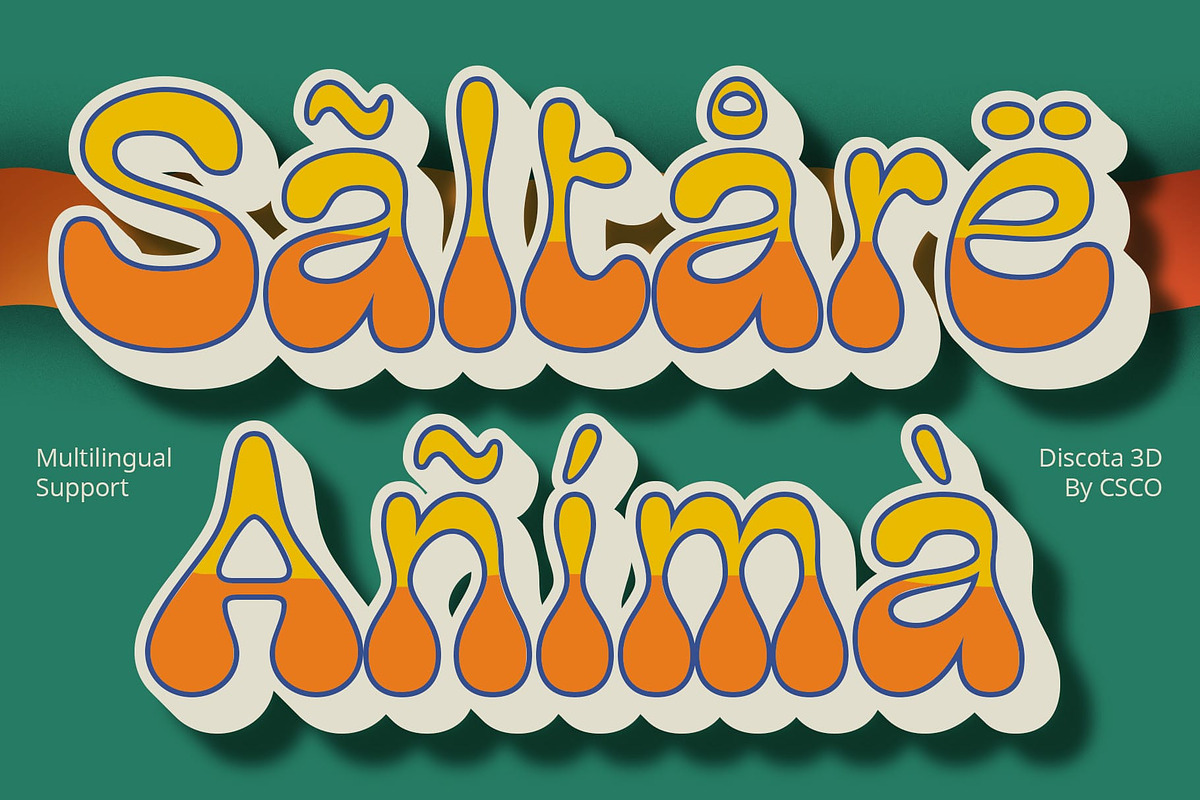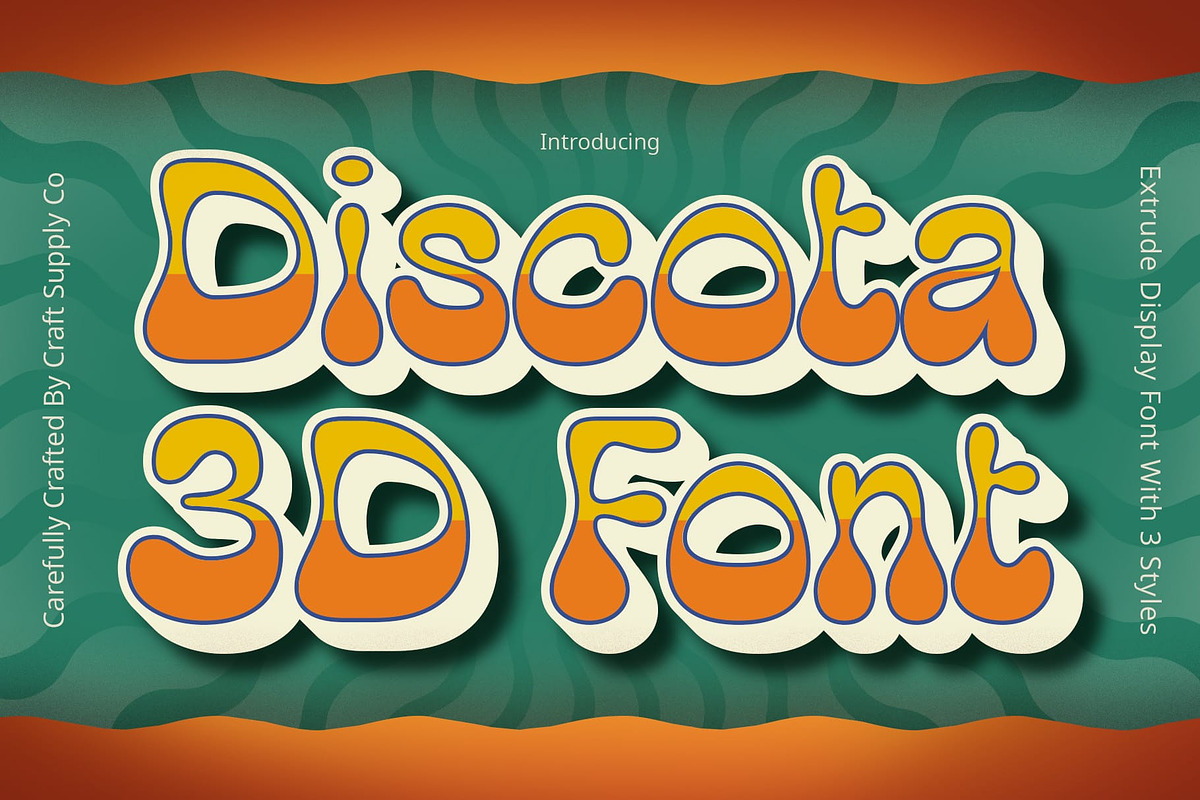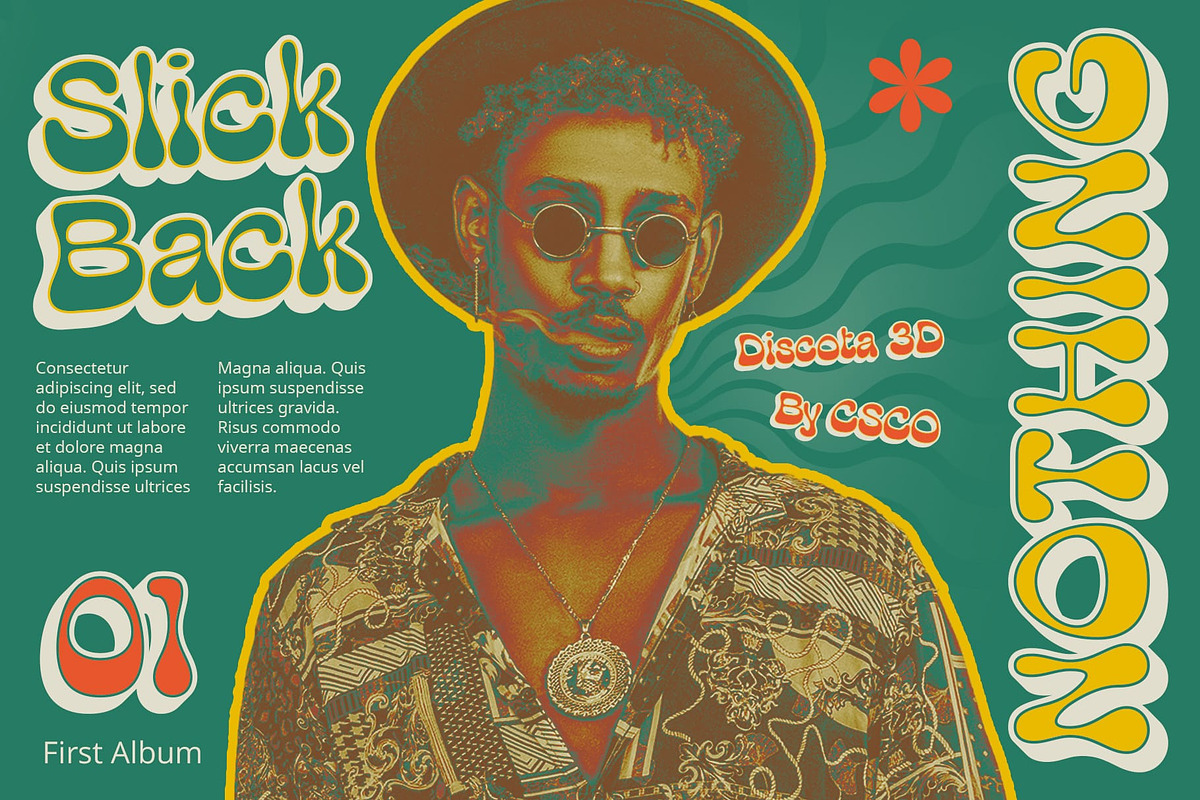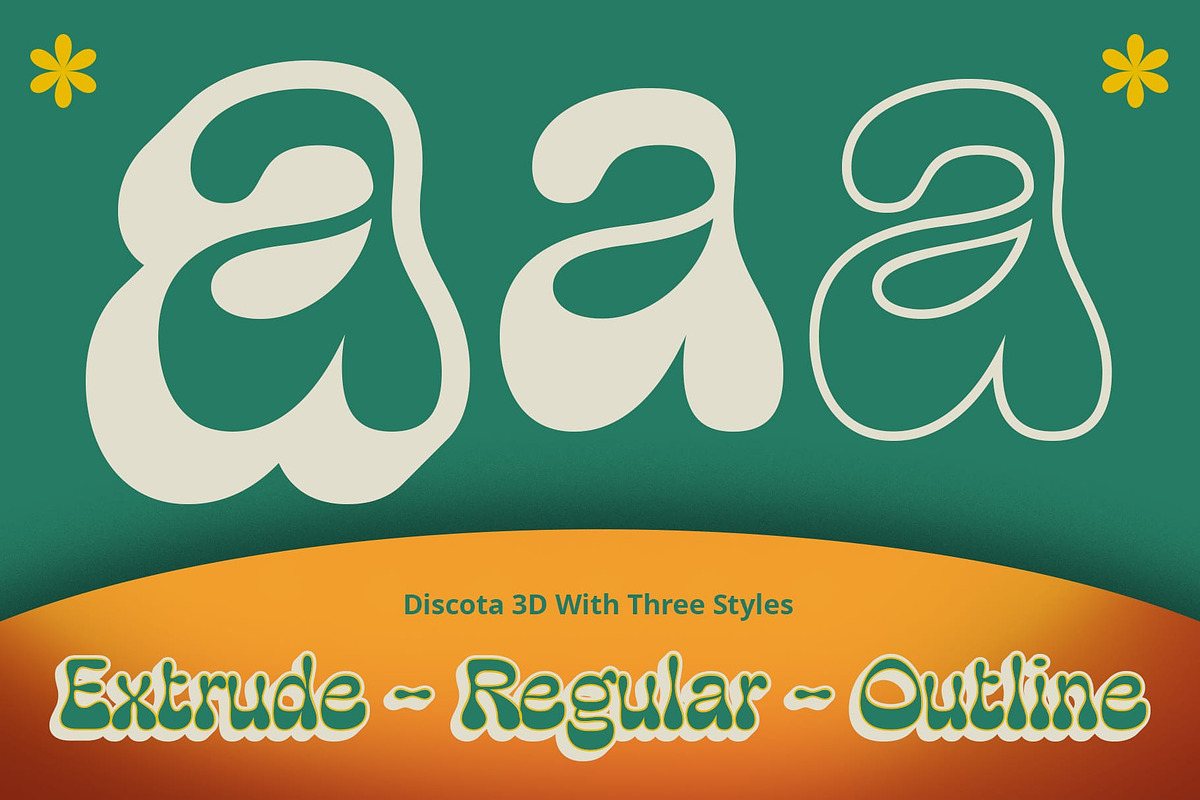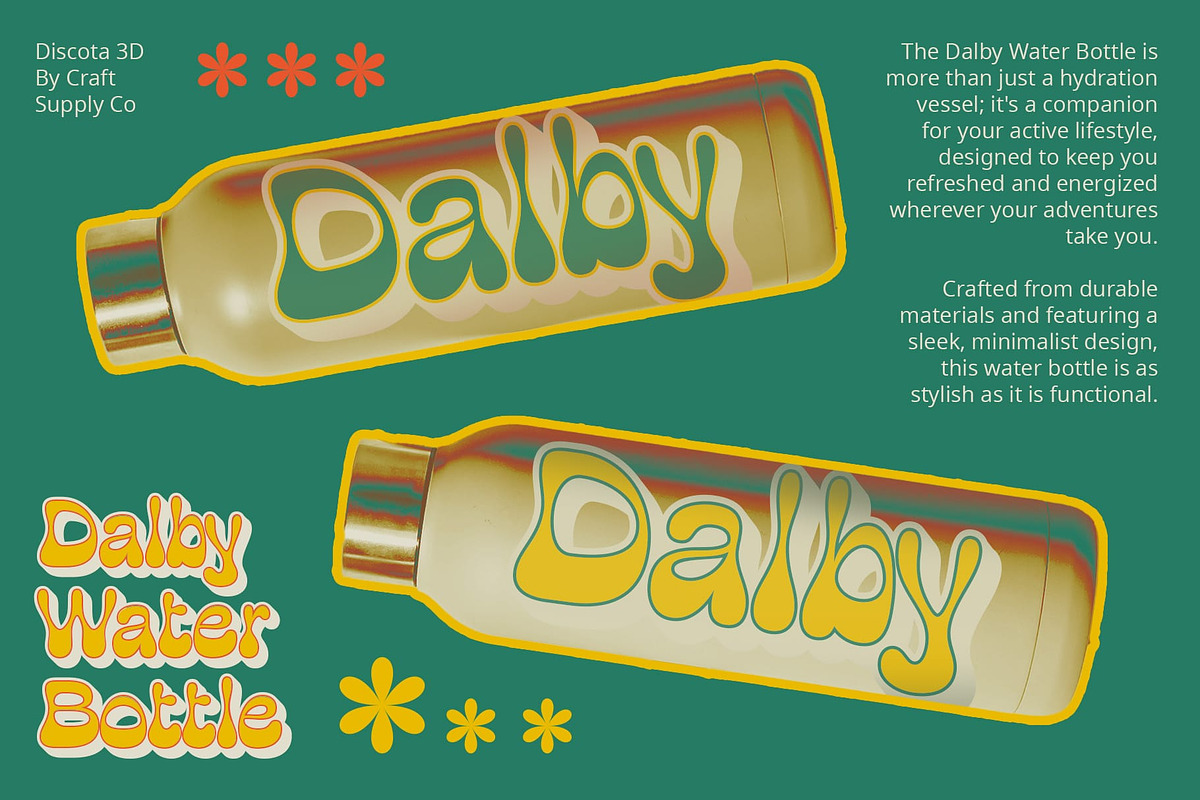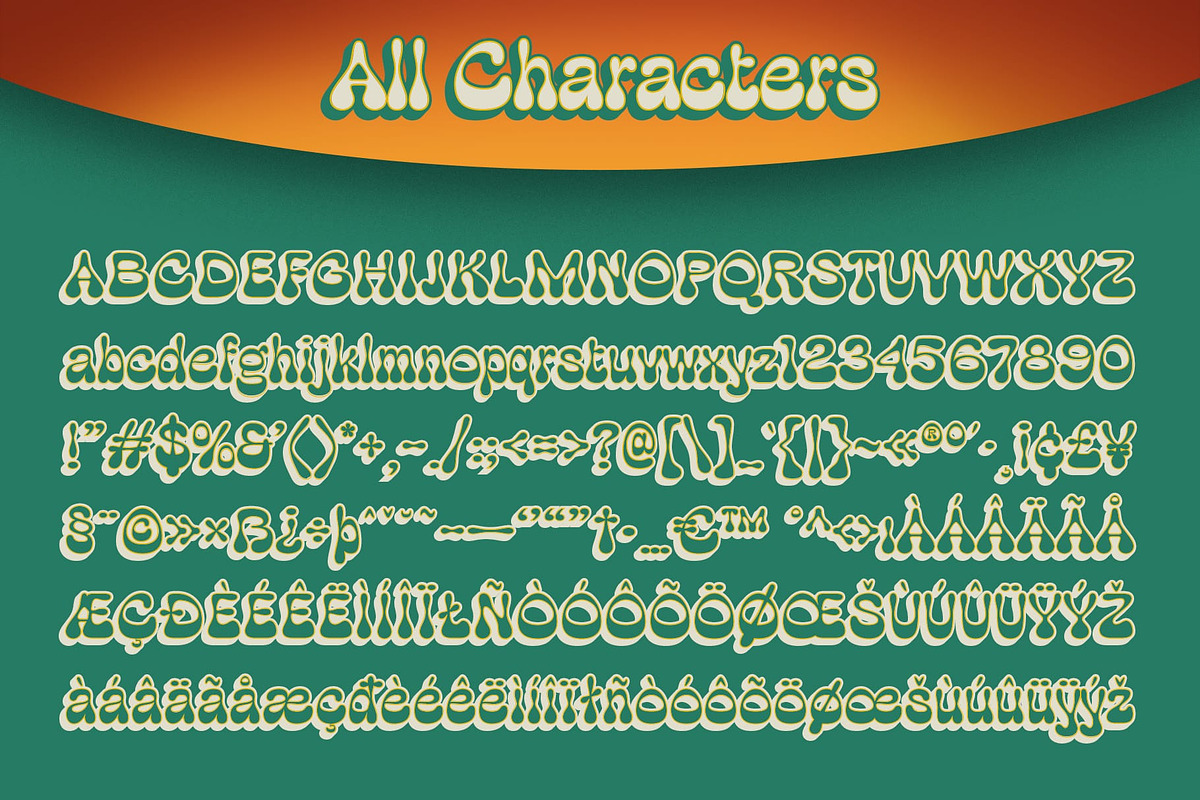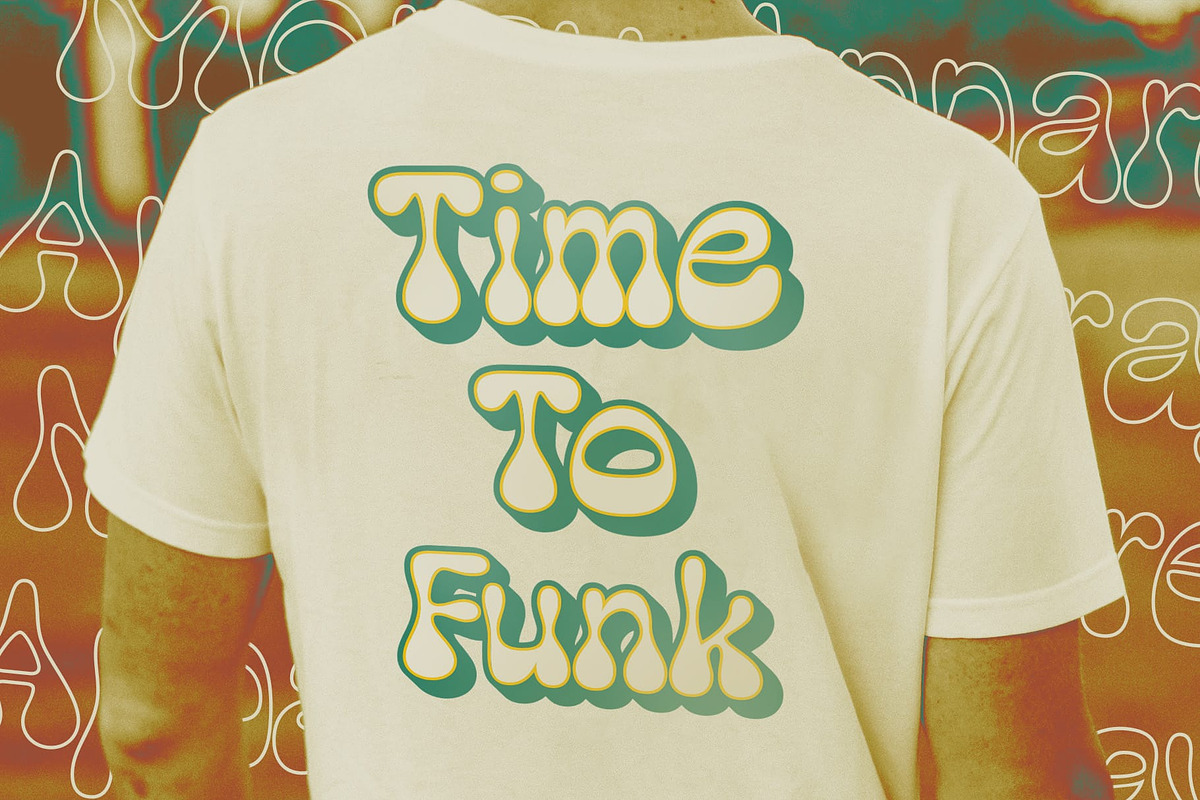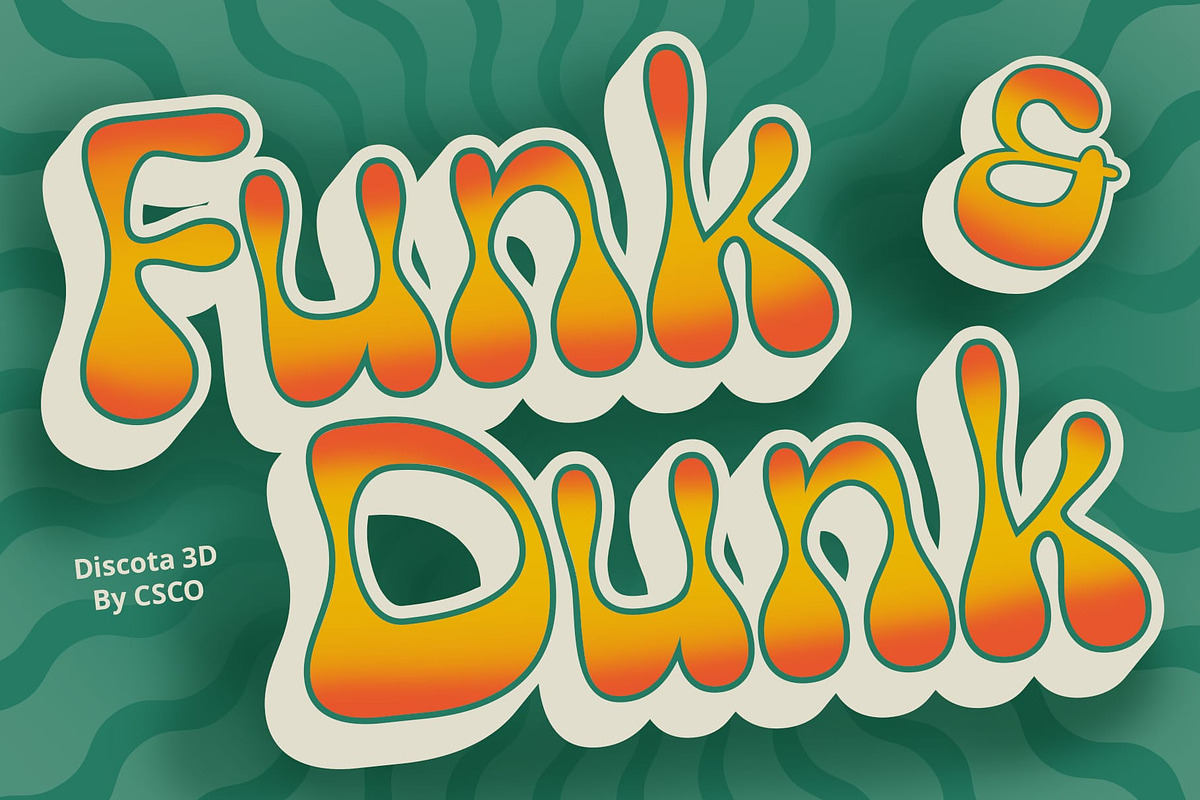
Discota 3D
Discota 3D: Retro Bubble Display Font
Inspired by Balloons Discota 3D draws inspiration from balloons, infusing a retro vibe into its bubbly design. Its playful display appearance evokes nostalgia and charm, reminiscent of carefree days.
Quirky and Fun With its whimsical bubble shape and retro undertones, This font exudes a quirky and fun personality. Each character radiates a cheerful aura, making it perfect for lighthearted display projects.
Dynamic 3D Effects Enhanced with dynamic 3D effects, This font comes to life with depth and dimension. The added dimensionality elevates its visual appeal, ensuring that it captivates attention and stands out effortlessly.
Eye-catching Display Solution Tailored for eye-catching displays, This font is an ideal choice for projects that demand immediate attention. Whether used in posters, advertisements, or digital graphics, its vibrant and lively presence guarantees to leave a lasting impression.
Retro Charm in Every Bubble This font brings retro charm to the forefront with its bubbly design and playful demeanor. Enhanced with dynamic 3D effects, it offers a delightful visual experience that is sure to capture hearts and attention alike. Let This font infuse your designs with whimsy and nostalgia, creating memorable displays that leave a lasting impact.